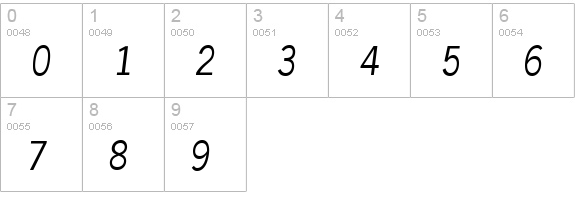
Hamburg-LightIta Font Details
Hamburg-LightIta is a modern and sleek font that effortlessly combines elegance with a touch of playfulness. Its clean lines and delicate curves make it perfect for a wide range of design projects, from branding and advertising to packaging and editorial design. This versatile font exudes a sense of sophistication and professionalism, making it an ideal choice for both digital and print applications. What sets Hamburg-LightIta apart is not just its stunning design, but also the fact that it is available completely free of charge. Yes, you read that right! This high-quality font can be freely downloaded from FontsMarket.com, allowing designers and creatives to access its beauty without any financial burdens. Whether you're a professional designer or a hobbyist, Hamburg-LightIta is a must-have addition to your font collection. Its versatility, elegance, and affordability make it an invaluable asset for any project. So go ahead, visit FontsMarket.com today and experience the joy of freely downloading this remarkable font. Elevate your designs with Hamburg-LightIta and let your creativity shine!